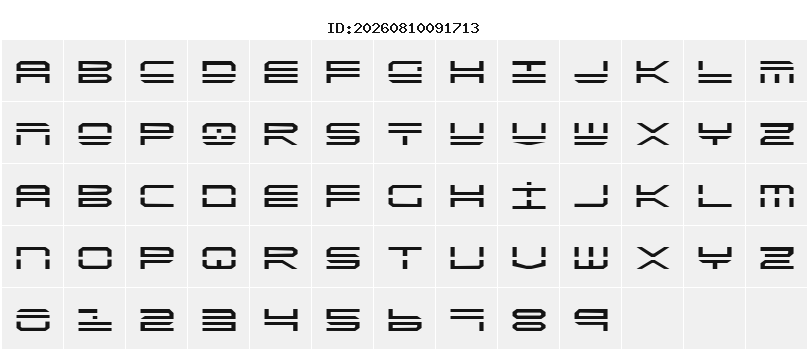
About PCLifeQuickStrike.ttf
PCLifeQuickStrike.ttf is a modern, elegant sans-serif font designed for ultimate readability and visual harmony. Perfect for branding, headlines, web design, and print materials.